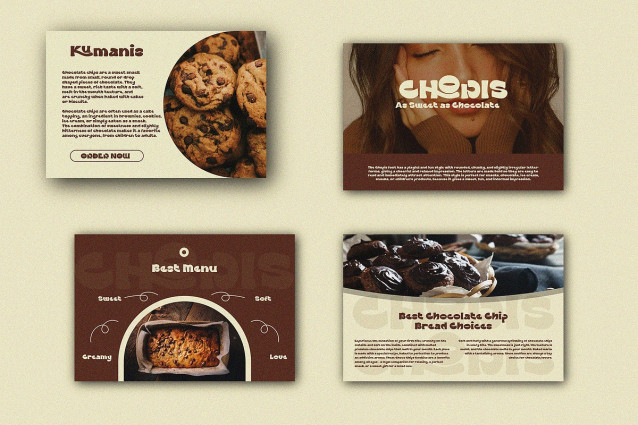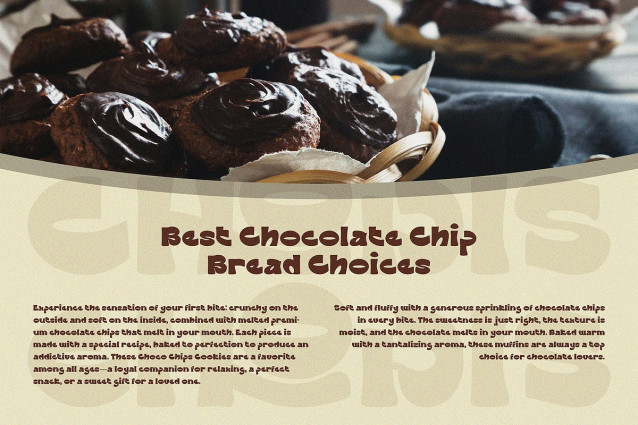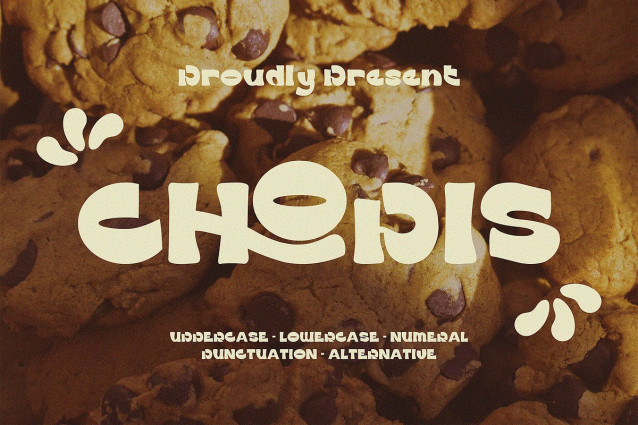
Chopis Display Font
Chopis Display Font: Playful and fun with rounded, bold, slightly irregular letters that give off a playful and relaxed impression. The letters are bold, easy to read, and instantly grab attention. This font is perfect for snacks, chocolate, ice cream, confectionery, or children’s products, as it gives off a sweet, playful, and friendly feel.